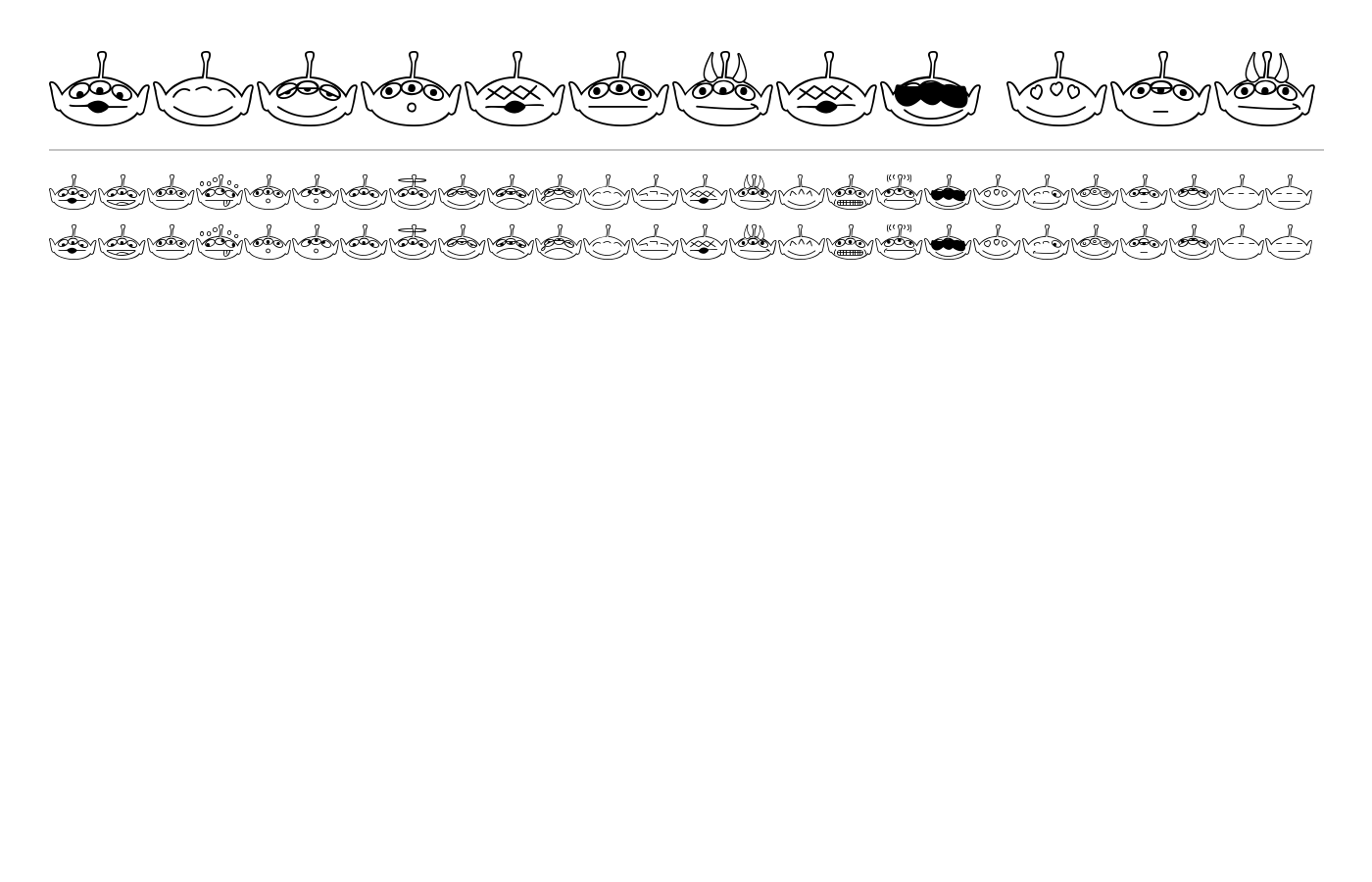
Aliencons two is a playful and whimsical symbol font featuring various quirky alien faces, each with distinct expressions and details. It is perfect for fun, lighthearted design projects, adding a unique, extraterrestrial character to logos, posters, or children’s materials where a non-traditional and imaginative touch is desired. This font works well in creative contexts that benefit from visual iconography rather than text.
Aliencons two Font
About Aliencons two Font